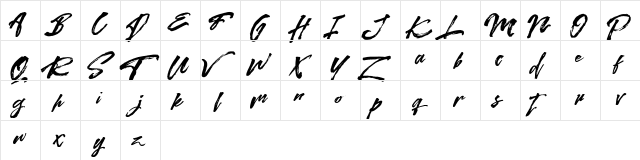
Kreakers Brush Regular
| Foundry | Mindtype Co. |
| Designer | Putra Khan |
Design Context for Kreakers Brush Typeface
Kreakers Brush flows with the natural rhythm of handwritten lettering, making it ideal for designs that call for warmth and personal expression.
Font Pairing: Combine Kreakers Brush with a simple geometric sans for maximum contrast — the tension between flowing curves and clean structure is a classic typographic pairing.